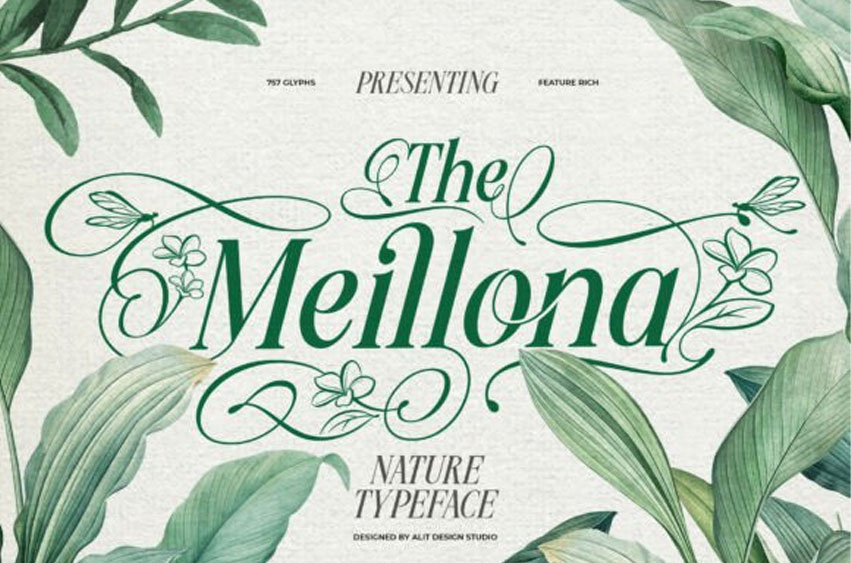
Meillona Font
Meillona Font is a graceful and romantic slanted serif typeface, thoughtfully inspired by the delicate beauty of nature. Designed with both sophistication and organic charm in mind, its flowing letterforms and timeless serif construction make it a versatile choice for elegant, expressive design. What sets Meillona apart is its ability to blend classic style with natural artistry, making every composition feel refined yet deeply connected to the natural world.
At the heart of Meillona lies a rich feature set, including over 757 glyphs and a stunning array of illustrated swashes that incorporate flowers, leaves, and whimsical dragonflies. These flourishes invite you to create truly bespoke typography that radiates luxury and romance.
Meillona offers multiple stylistic sets to suit a variety of moods and applications. Stylistic Set 1 introduces clean, sweeping swashes for a timeless and elegant look. Stylistic Set 2 weaves in subtle leaf and floral bud accents, while Stylistic Set 3 embraces more elaborate, blooming swashes that allow your text to flourish visually. Whether you’re designing for weddings, branding, or editorial layouts, Meillona brings poetic beauty and natural sophistication to every letter.